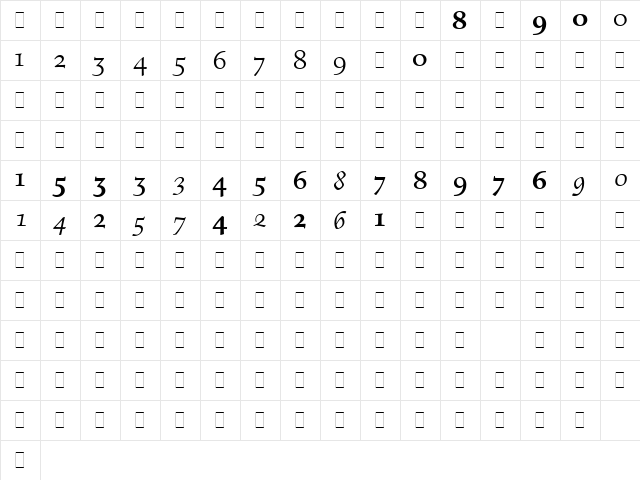
Figural OS Figures LET Plain
Design Context for Figural OS Figures LET Typeface
Figural OS Figures LET takes a measured approach to typography — its balanced proportions and neutral character make it a reliable workhorse for both digital and print work.